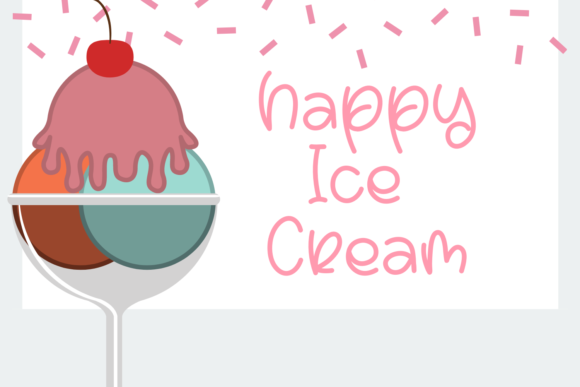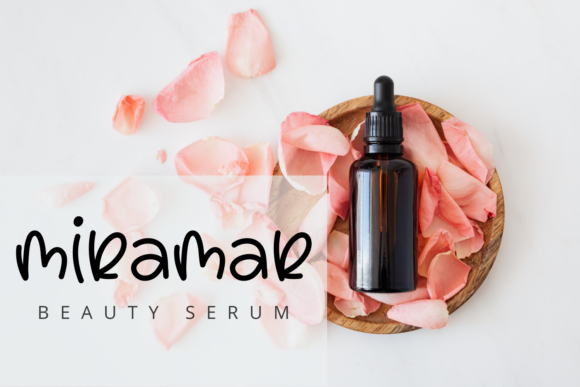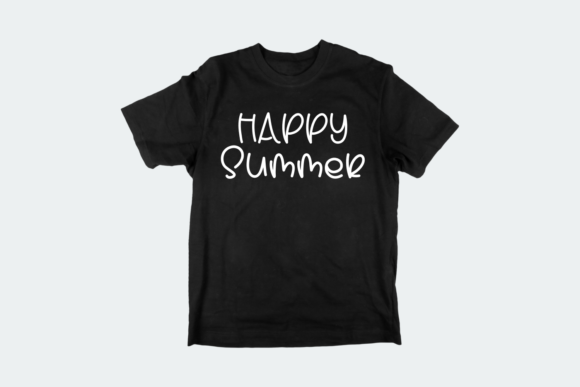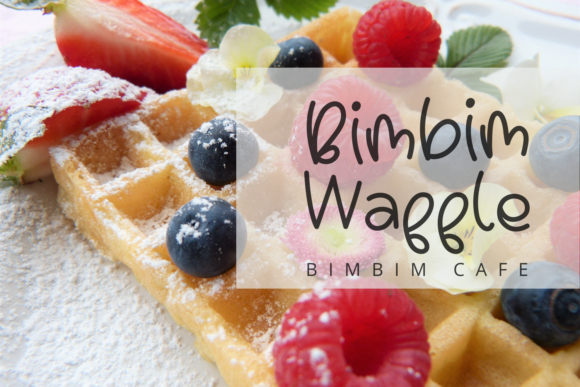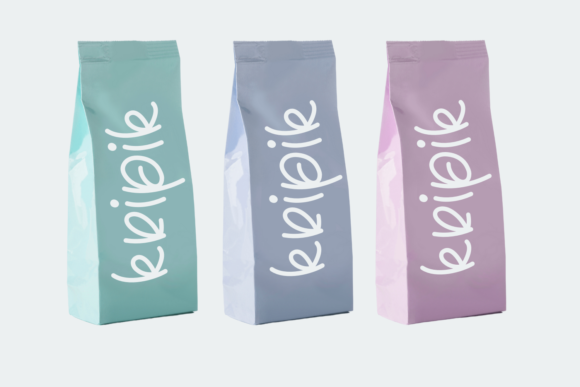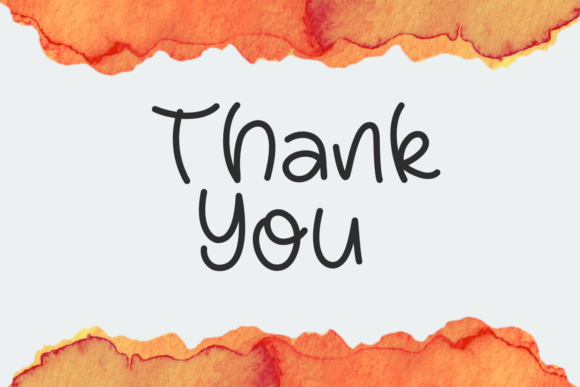
Who hasn’t ever been stuck in a creative rut, staring blankly at a blank page, waiting for inspiration to strike? For designers, this moment can be a real challenge. But sometimes, all it takes is a dash of whimsy and a pinch of playfulness to get those creative juices flowing again. And that’s exactly what the Chillin Ice Cream Font brings to the table.
This adorable, handwritten font is the perfect addition to any designer’s toolkit. With its quirky charm and versatility, Chillin Ice Cream Font is sure to elevate any project from meh to mesmerizing. Whether you’re designing a kid’s birthday party invitation or a summer-themed blog post, this font is the perfect choice. And the best part? It’s incredibly easy to use, making it a valuable asset for designers of all levels.
Chillin Ice Cream Font Key Features
- Font Styles: Chillin Ice Cream Font offers a variety of styles, including Regular, Italic, Bold, and Bold Italic.
- Unique Characteristics: Chillin Ice Cream Font features a unique, playful design with a mix of rounded and angular shapes, making it perfect for creating fun and eye-catching graphics.
- Language Support: The font supports a wide range of languages, including English, Spanish, French, German, Italian, and many more.
Designer Review: Chillin Ice Cream Font
Overall, I think the Chillin Ice Cream Font is a fun and playful choice for a dessert shop or ice cream brand. Here are some things that work well:
- ✨ The font’s bold and colorful design is sure to grab attention and make customers smile.
- ✨ The font’s script-like style gives it a hand-drawn feel that’s perfect for a small business or boutique ice cream shop.
- ✨ The font is highly legible, even at smaller font sizes, which is important for menus and signage.
- ⚠️ The font may not be the best choice for formal or upscale branding, as it’s a bit too playful and casual.
- ⚠️ The font’s bold design may not be suitable for large amounts of text, as it can become overwhelming and difficult to read.
- ⚠️ The font is not highly customizable, which may limit its use in certain design situations.
Overall, I think the Chillin Ice Cream Font is a great choice for small businesses or brands that want to convey a fun and playful personality. However, it may not be the best fit for more formal or corporate branding.
To get the most out of the “Chillin Ice Cream Font”, try using it in creative and playful ways, such as:
- Creating a fun and colorful brand identity.
- Designing a summer-themed promotional material.
- Adding a playful touch to a social media post.
The “Chillin Ice Cream Font” is commonly used in:
- Summer-themed promotional materials.
- Playful social media posts.
Alternatives to Chillin Ice Cream Font for Designers
Great Vibes is a modern, elegant script font perfect for adding a touch of sophistication to your designs. It’s ideal for use in logos, branding materials, and promotional items. Great Vibes has a more refined and polished look compared to Chillin Ice Cream Font, making it suitable for high-end or luxury brands.
Pacifico is a beautiful, cursive font that evokes a sense of relaxation and calmness. It’s perfect for use in designs that require a laid-back, beachy vibe. Pacifico has a more organic and natural feel compared to Chillin Ice Cream Font, making it ideal for designs related to travel, food, or wellness.
Dancing Script is a fun, playful script font that’s perfect for adding a touch of whimsy to your designs. It’s ideal for use in designs that require a sense of excitement or energy, such as event invitations, advertisements, or social media graphics. Dancing Script has a more dynamic and lively feel compared to Chillin Ice Cream Font, making it suitable for designs that need to grab attention.
Q: What is the recommended font size and line height for optimal readability with the Chillin Ice Cream Font?
For optimal readability, we recommend using a font size between 12 and 18 points, with a line height of at least 1.2 times the font size. This will ensure clear and legible text in your designs.